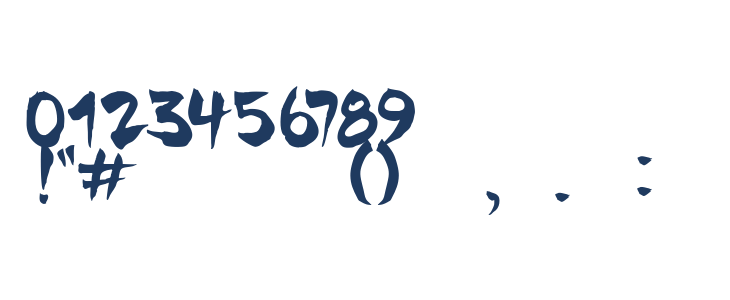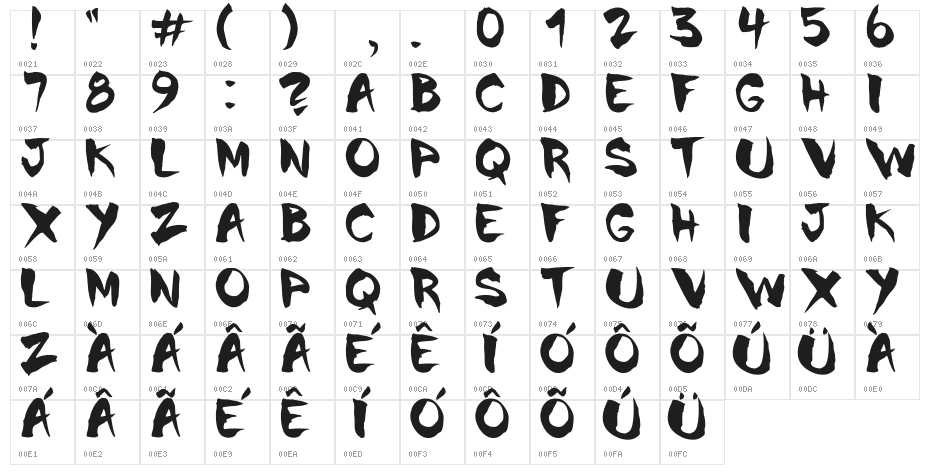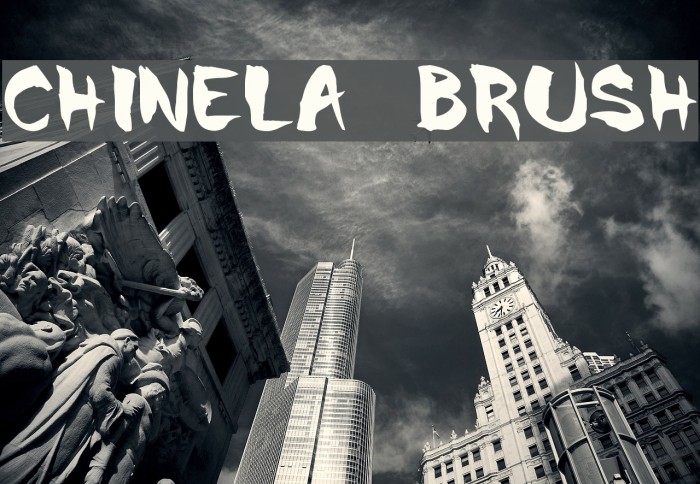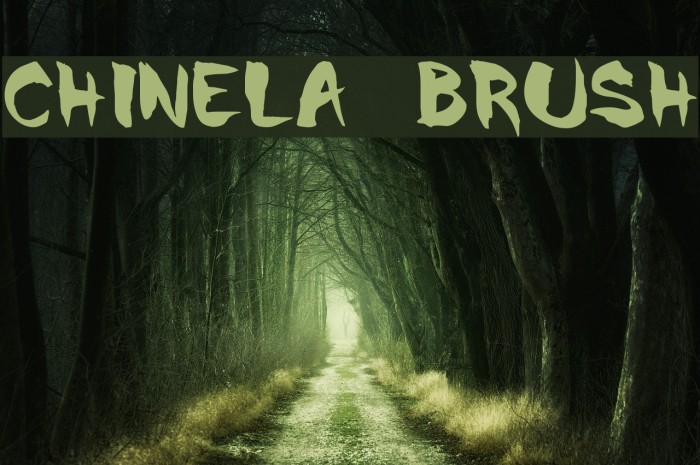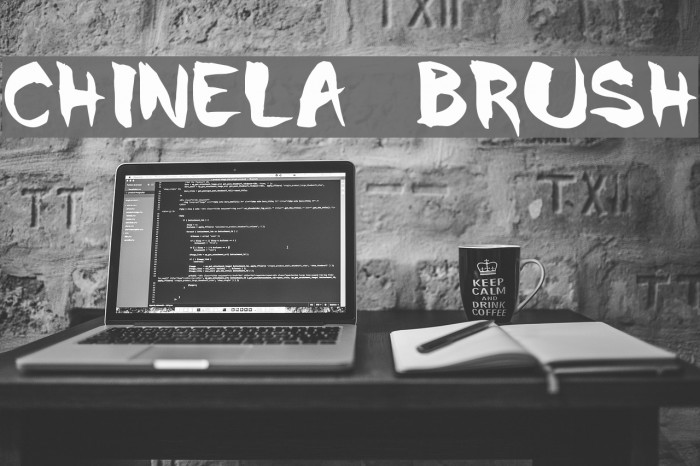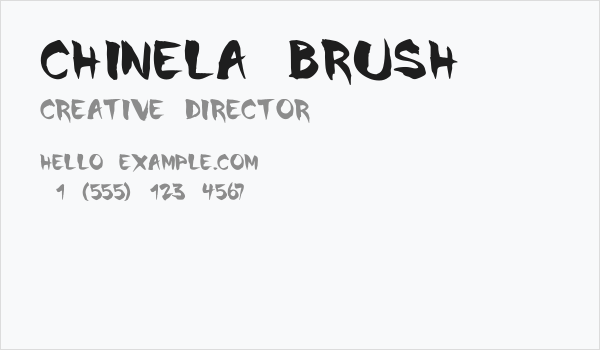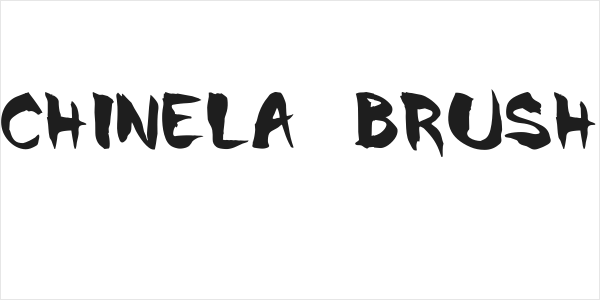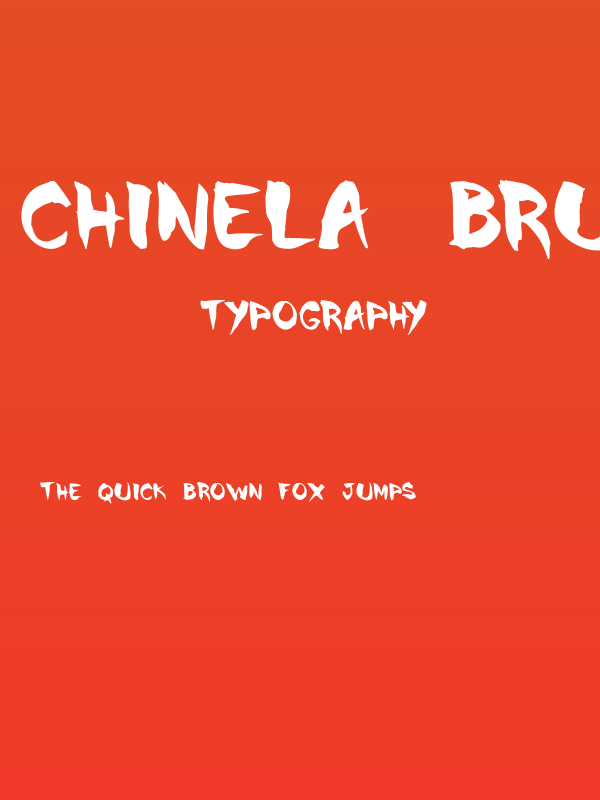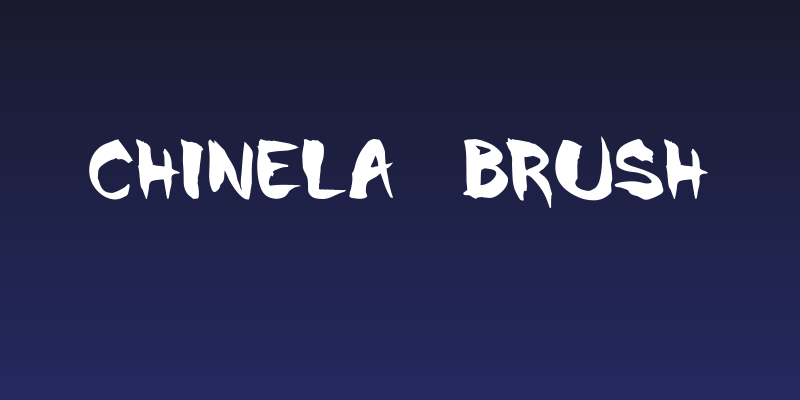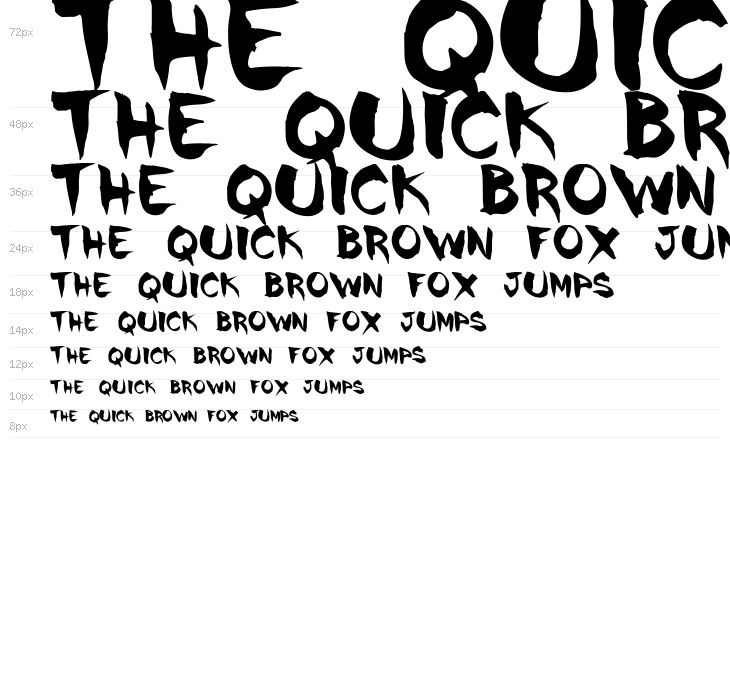
Chinela Brush Font
Chinela Brush Description
This font features a bold, brush-like appearance with a dynamic and energetic style. The characters are crafted with irregular strokes, giving them a hand-painted look. The uppercase and lowercase letters maintain a consistent flow, while the numbers and special characters complement the overall aesthetic. The font's design is reminiscent of street art or graffiti, with a raw and expressive quality. Its boldness and unique character shapes make it stand out, suitable for projects that require a strong visual impact.
| Overall Style | Modern, Artistic |
| Proposed Projects | Ideal for posters, album covers, branding, and any creative projects that require a bold and artistic touch. |